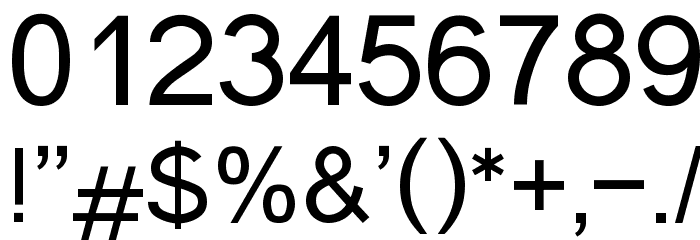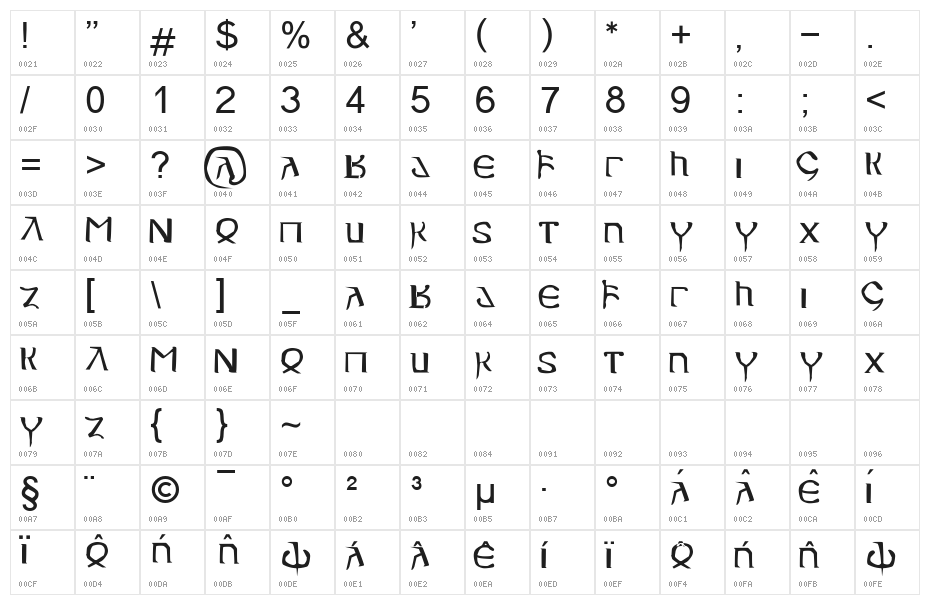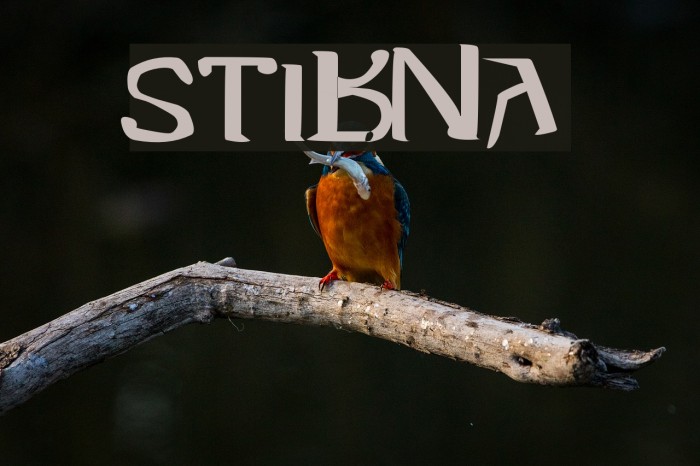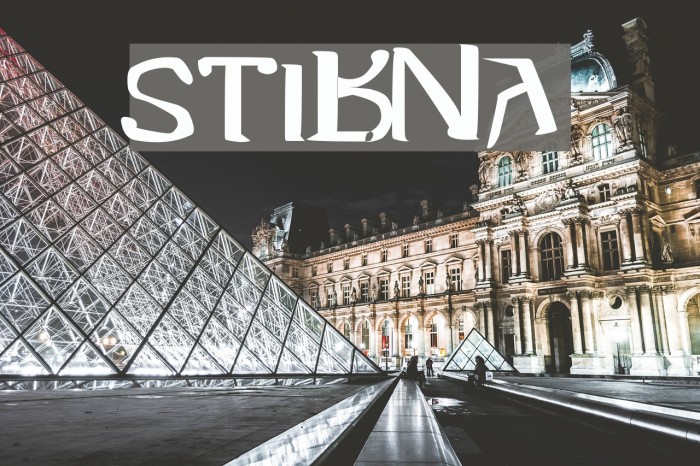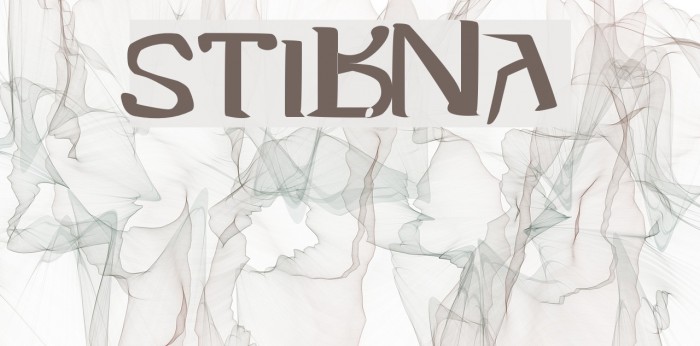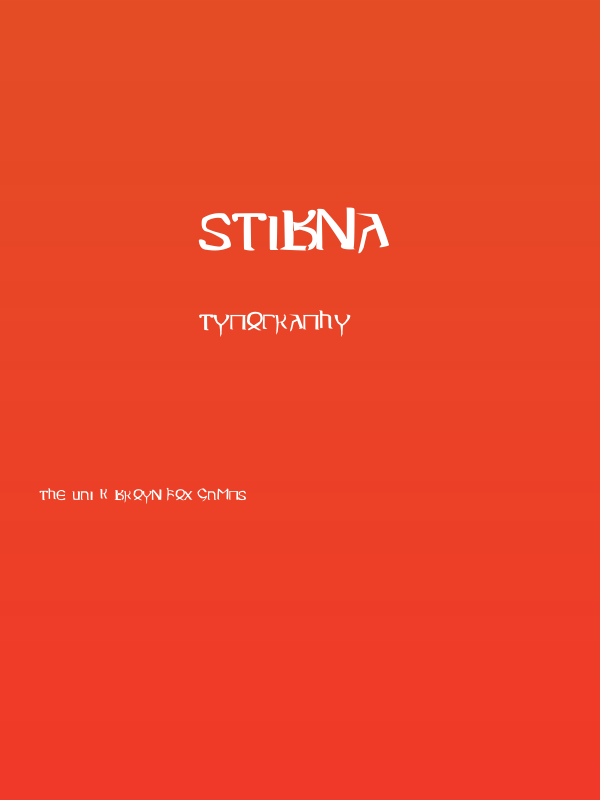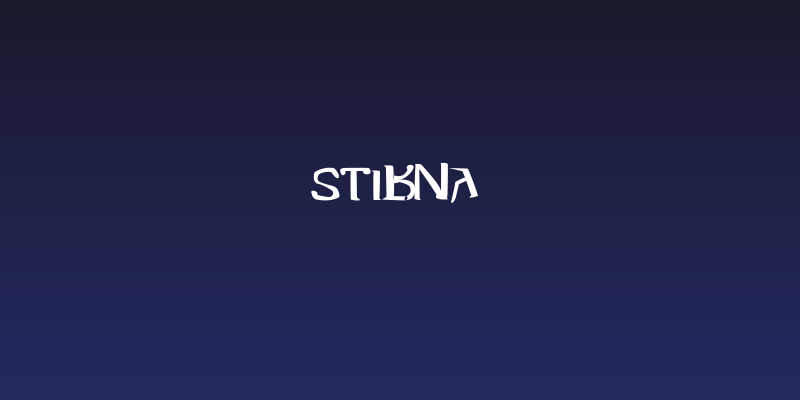
Stibna Font
Stibna Description
This font features a unique and artistic design with a strong emphasis on angular and geometric shapes. The characters have a distinct medieval or fantasy-inspired style, with sharp edges and a bold presence. The uppercase letters are particularly striking, with intricate details that give them a decorative flair. The lowercase letters maintain the same stylistic elements, ensuring consistency throughout the typeface. Numbers and special characters are designed with the same attention to detail, making this font versatile for various applications. Its bold and dramatic appearance makes it ideal for projects that require a touch of elegance and sophistication.
| Proposed Projects | Ideal for fantasy book covers, game titles, posters, and branding that requires a dramatic and elegant touch. |